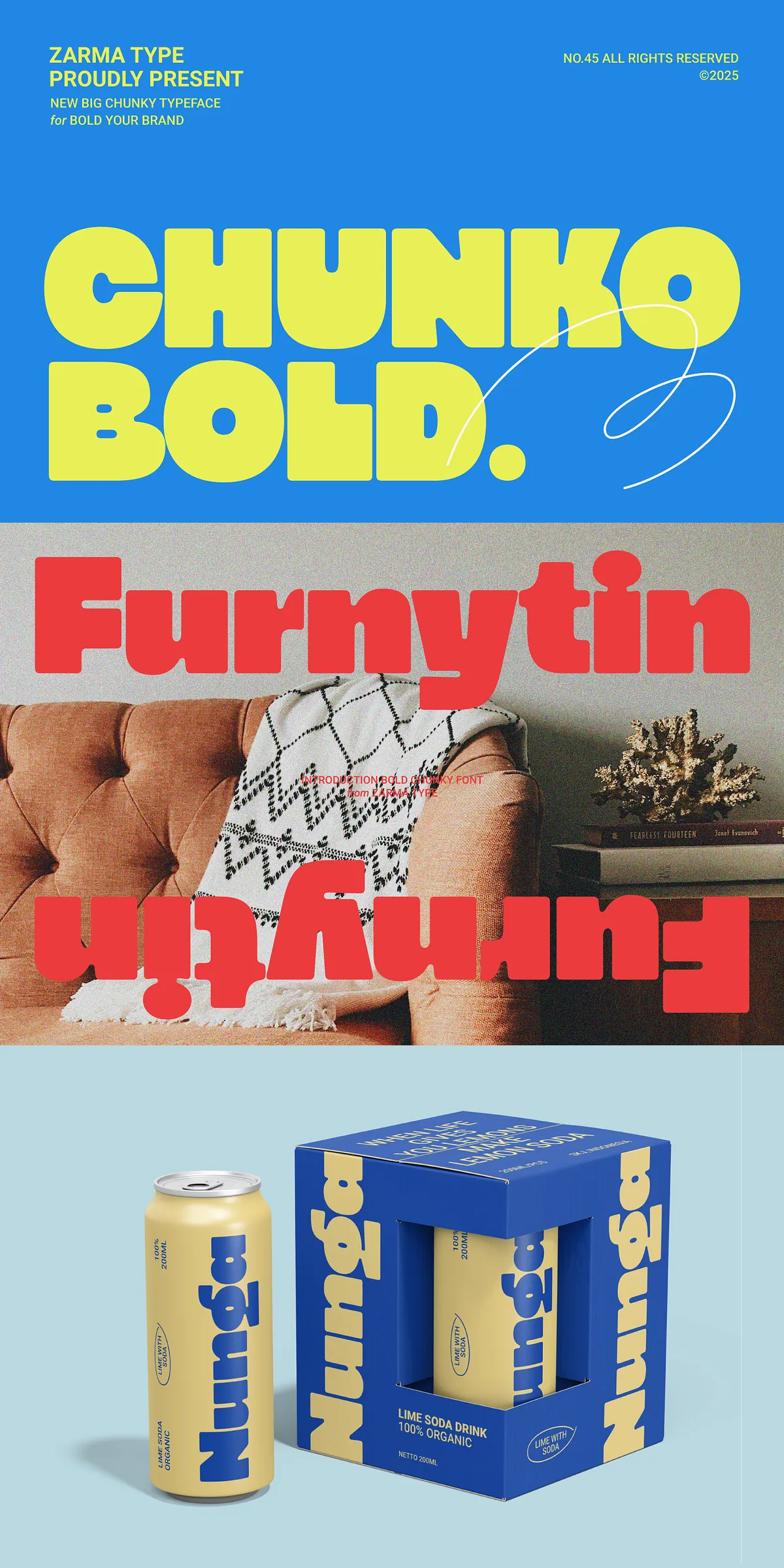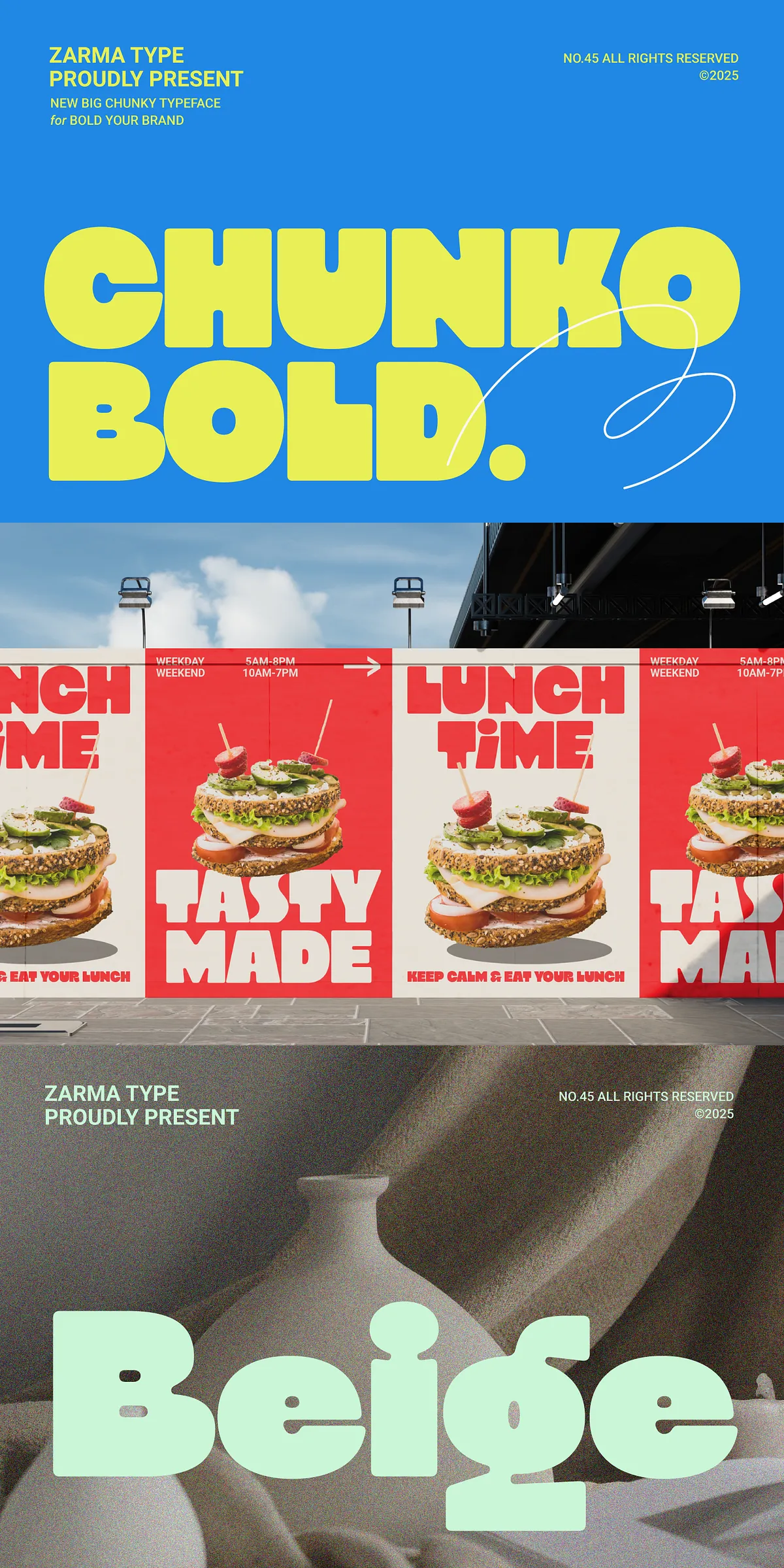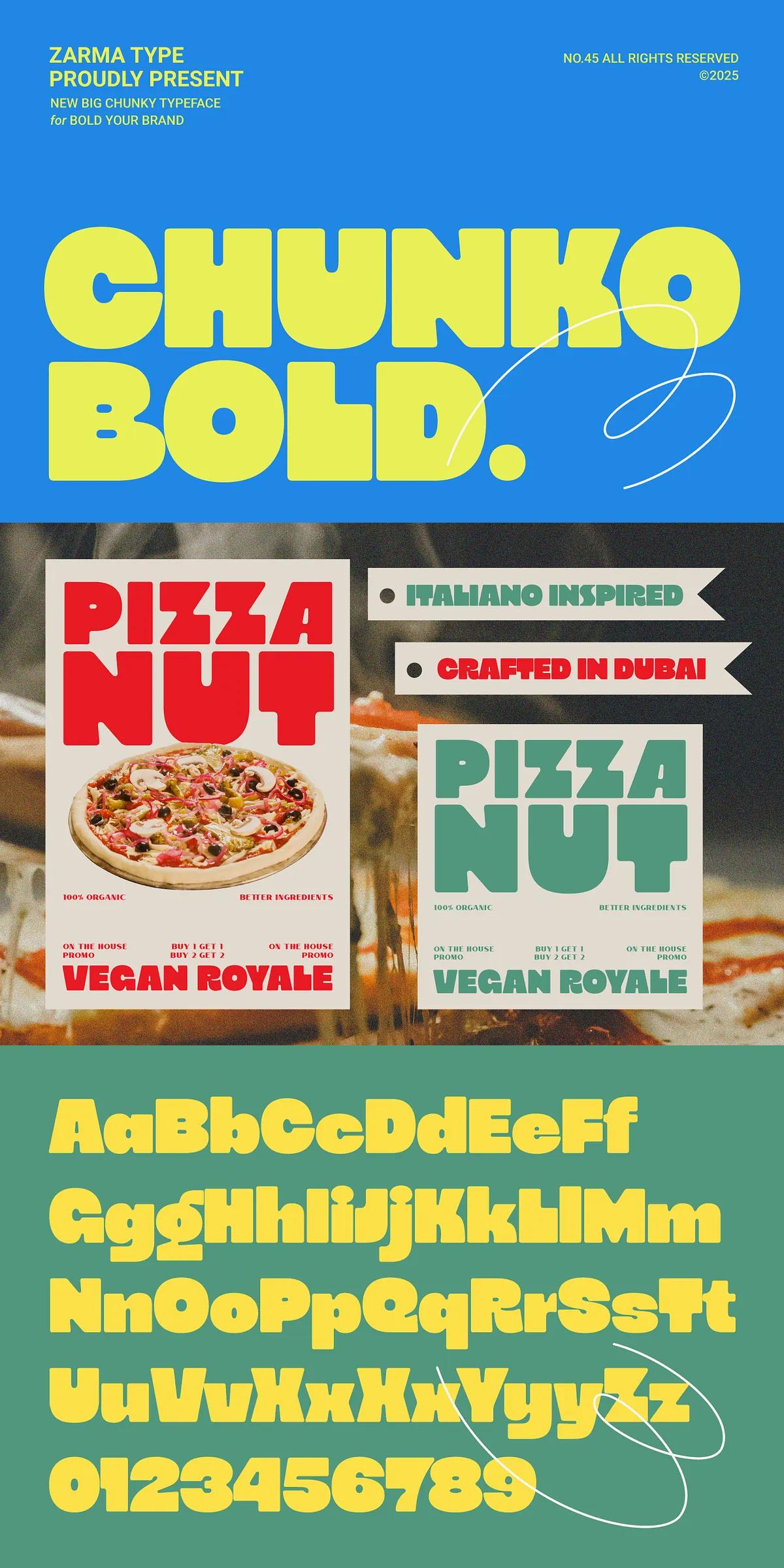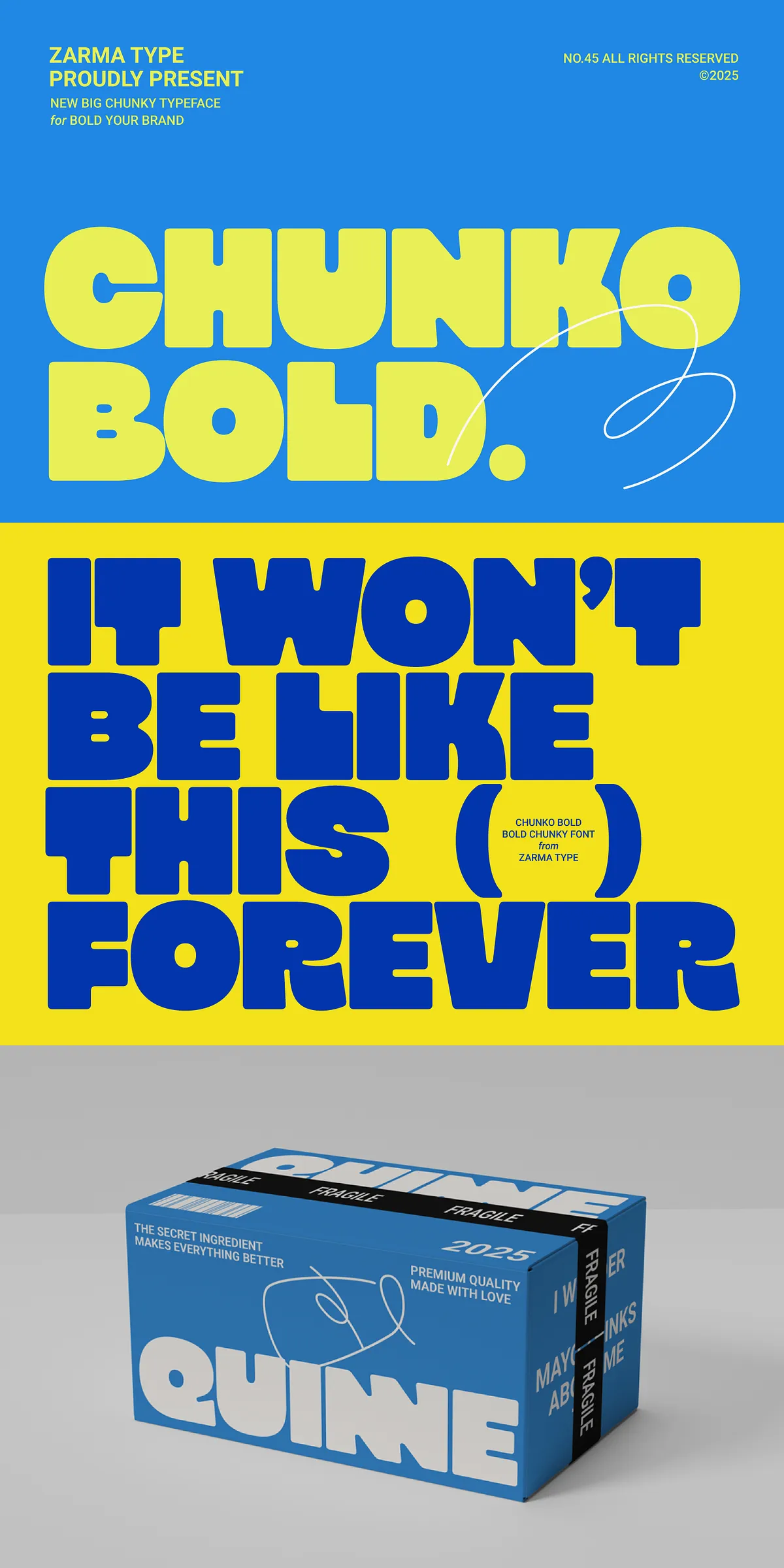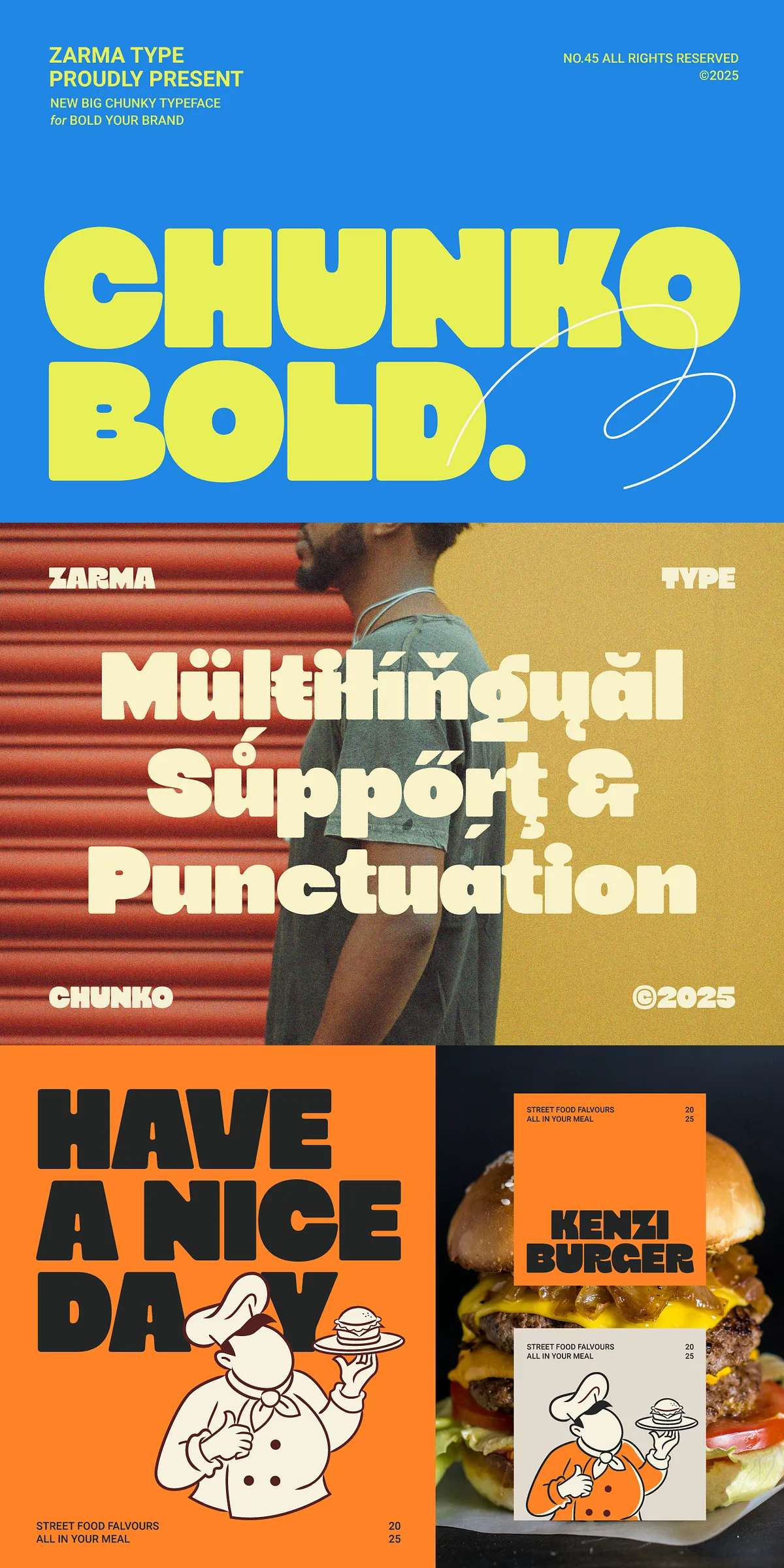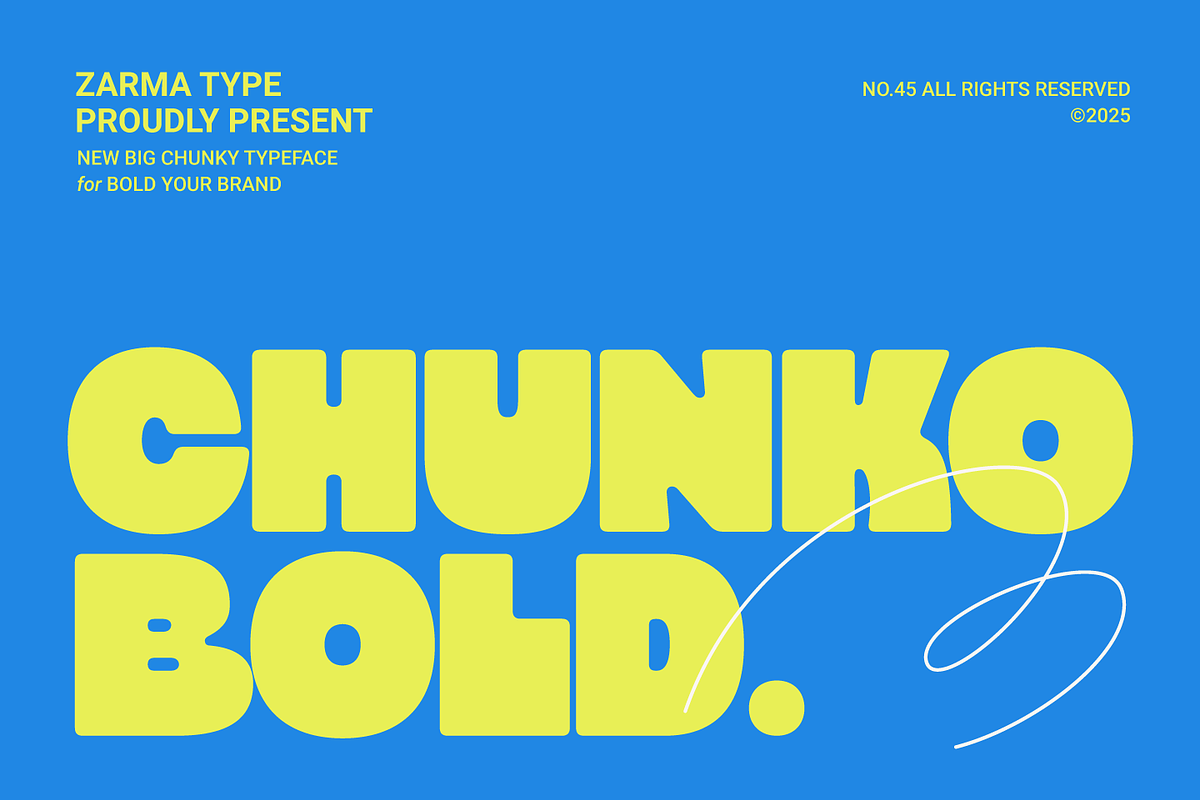
Step into the future of bold typography with Chunko Bold—a dynamic, chunky display typeface engineered for maximum visual impact without sacrificing clarity. This isn’t just a font; it’s a design statement. Built on the principles of bold minimalism, Chunko Bold fuses massive geometric proportions with a touch of contemporary playfulness—making it the go-to choice for designers who demand both authority and aesthetic sophistication.
Designed for Impact: Where Minimalism Meets Maximum Presence
In a world where design is stripped to its essentials, Chunko Bold rises above the noise. Its powerful, heavily weighted letterforms are crafted to dominate minimalist compositions, turning typography into the central element of the design. Every stroke is precise, every curve intentional, and every letterform balanced—creating a harmonious visual rhythm that commands attention and holds it.
Unlike rigid, cold fonts that feel mechanical, Chunko Bold introduces subtle roundness in its terminals and corners. This small but strategic detail softens its strong presence, adding warmth and approachability—perfect for brands that want to appear confident yet human.
Whether you’re defining a brand identity, launching a product, or creating editorial content, Chunko Bold ensures your message doesn’t just land—it *resonates*.
Perfect for Minimalist Design, Made for Real-World Applications
Chunko Bold thrives in environments where less is more—but with a powerful punch. It’s the ideal font for:
- Minimal Brand Identity & Packaging: Create clean, unforgettable packaging for fashion, tech, or lifestyle brands.
- Contemporary Editorial Design: Stand out in magazines, zines, and digital publications with powerful headlines.
- Bold Minimalist Layouts: Build striking web banners, presentation decks, and digital ads with a clear visual hierarchy.
- Modern Food & Beverage Branding: Elevate your brand with bold, clean labels for craft beer, specialty coffee, or premium snacks.
- Clean Social Media Graphics: Capture attention in fast-scrolling feeds with text that’s both readable and iconic.
- Minimal Poster Design: Make your event posters, movie promotions, or art exhibitions instantly memorable.
- Typography-Focused Digital Content: Use for landing pages, quotes, or quotes in social media carousels where text is king.
- Modern Restaurant Menus: Add elegance and clarity to menu design with a bold yet balanced display font.
Engineered for Excellence: Precision-Designed for Any Medium
Chunko Bold isn’t just about looks—it’s built for performance. Each character has been meticulously crafted with optimized spacing, consistent weight distribution, and advanced OpenType features for seamless integration across platforms.
Supports:
- Full uppercase and lowercase alphabet
- Extensive set of numerals, punctuation, and symbols
- Advanced OpenType features (ligatures, stylistic alternates)
- Support for 80+ languages (Extended Latin, Cyrillic, Greek, and more)
Whether you’re designing for high-resolution print, digital screens, or large-scale signage, Chunko Bold maintains crisp, readable clarity at any size.
Why Designers Choose Chunko Bold
“We used Chunko Bold for a new tech startup launch, and it was instantly recognizable. It’s bold, clean, and says ‘innovation’ without saying a word.” – Lena Chen, Creative Director, NovaWave
“The balance between chunky structure and soft curves is unmatched. It fits perfectly in our minimalist branding while still feeling bold and modern.” – Julian Torres, Brand Strategist, PureForm